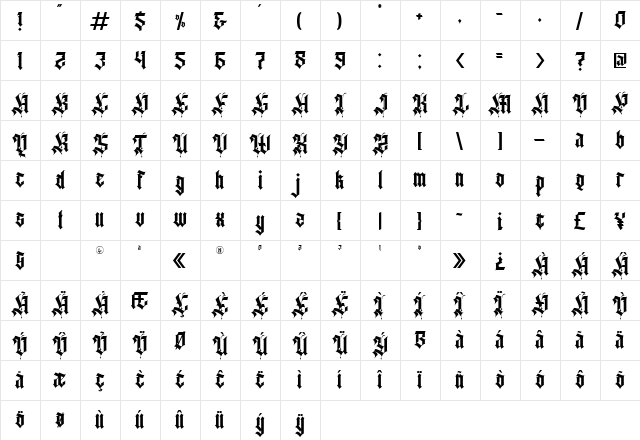
Agathiqy Regular Free Font
Agathiqy Regular
Foundry: Virgiawan Listanto
Designer: Virgiawan Listanto
Design Context for Agathiqy
Agathiqy is a composed and adaptable typeface that performs quietly and consistently across a wide range of design contexts.